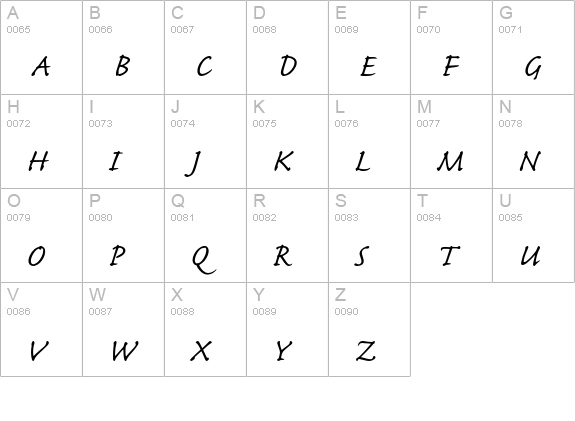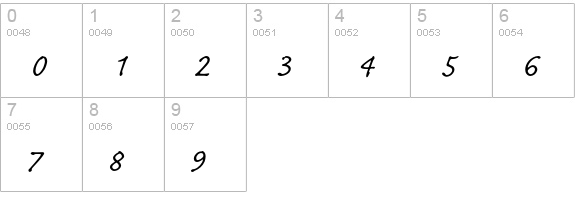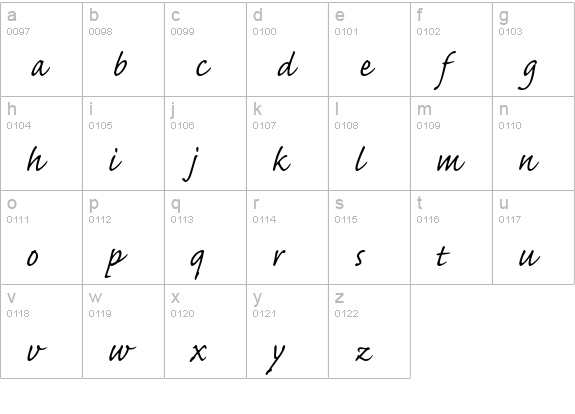
Caflisch Script Pro font is a beautifully designed typeface that captures the essence of elegant handwriting. With its flowing and graceful strokes, this font adds a touch of sophistication to any project, whether it's a wedding invitation, a logo design, or a stylish branding campaign. What makes Caflisch Script Pro font even more special is that it is free! That's right, you can download this stunning font without any cost at all. Its availability for free allows designers and creatives to access a high-quality script font without breaking the bank. The beauty of Caflisch Script Pro lies in its versatility. It can be used in a variety of design projects, from formal and classic to modern and chic. Its timeless appeal makes it a perfect choice for both print and digital media. With its wide range of characters and ligatures, Caflisch Script Pro font offers endless possibilities for customization. It allows designers to create unique and personalized typographic compositions that stand out from the crowd. Whether you're looking to add a touch of elegance or a dash of sophistication to your designs, Caflisch Script Pro font has got you covered. Downloading Caflisch Script Pro font is easy and convenient. Simply visit FontsMarket.com, where you can find this font available for free download. FontsMarket.com is a reliable source for high-quality fonts, offering a vast collection of fonts for all your design needs. So, if you're in search of a stunning script font that is not only visually appealing but also free, look no further than Caflisch Script Pro font. Download it today and let your creativity soar!